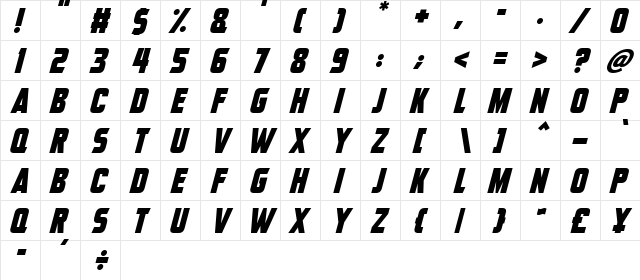
This Is The Future Italic
Design Context for This Is The Future Typeface
This Is The Future channels digital-age aesthetics through its sharp, structured letterforms — ideal for brands that want to signal innovation. The slanted form adds forward momentum and visual energy.
Pro Tip: Use This Is The Future in combination with a neutral sans for body text. Let it define the brand voice in headlines while keeping reading comfortable elsewhere.